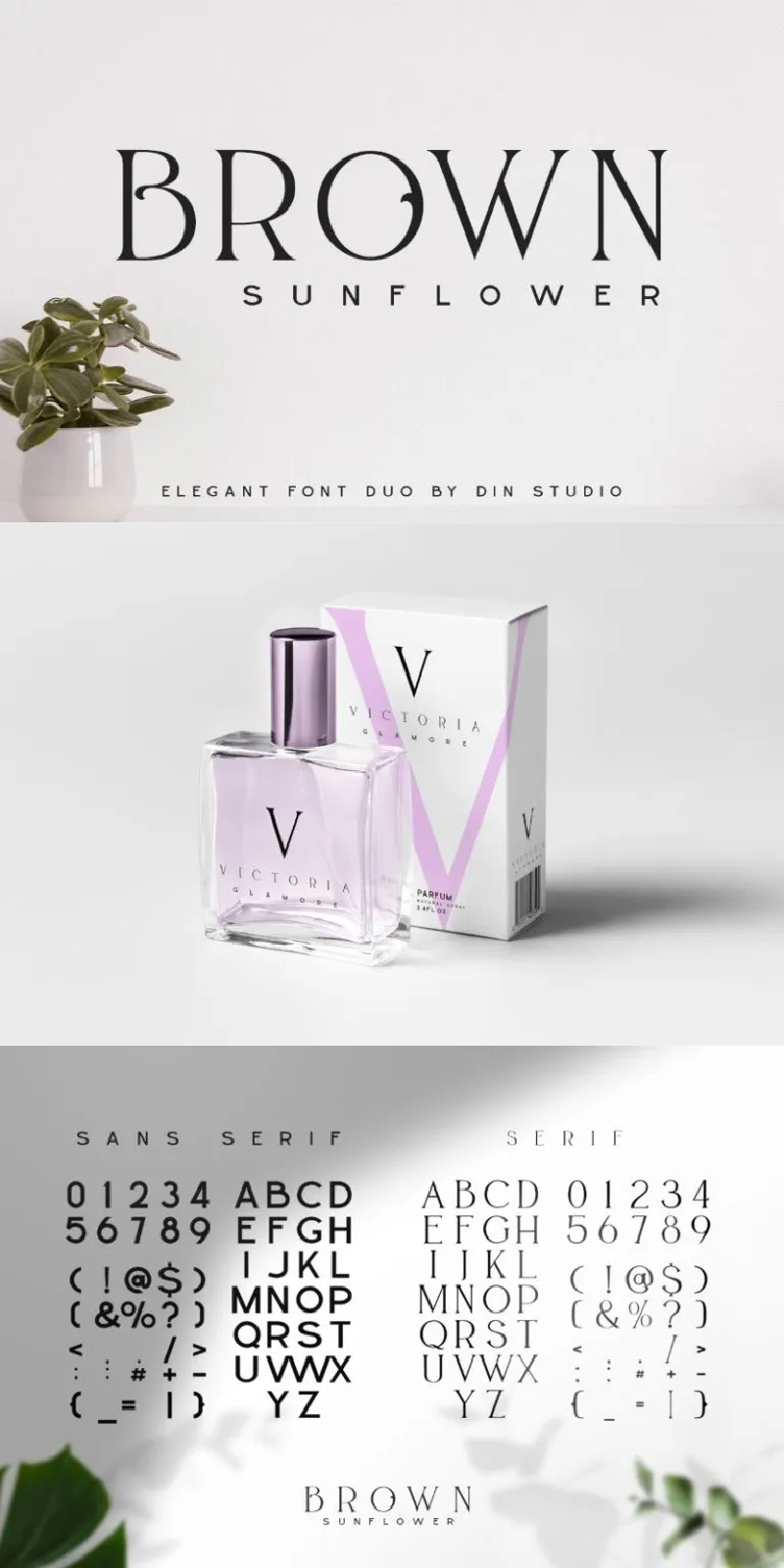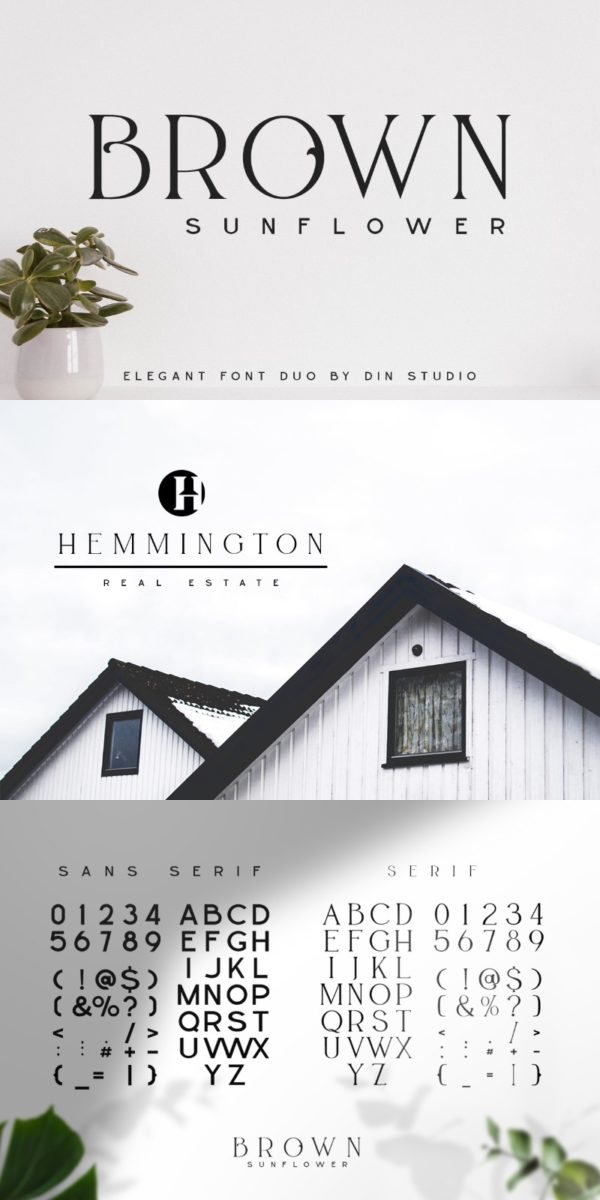
Brown Sunflower Font
About Brown Sunflower
Introducing Brown Sunflower Font – Font Duo. Brown Sunflower font is an elegant font which is a combination of light modern serif and decorative sans serif. It will make your designs more modern and beautiful. See the previews above to get some inspiration on how you can use them. Enjoy the font!
- Accents (Multilingual Characters)
- Many Alternates
- Numerals and Punctuations (OpenType Standard)